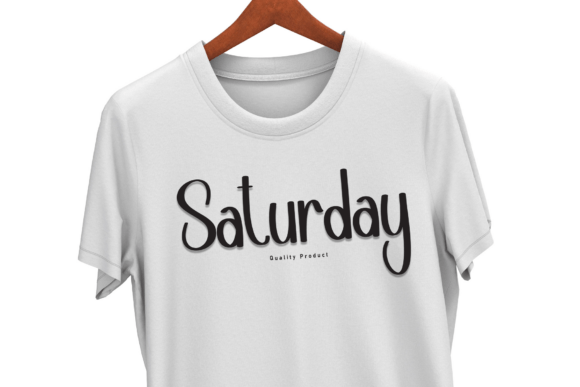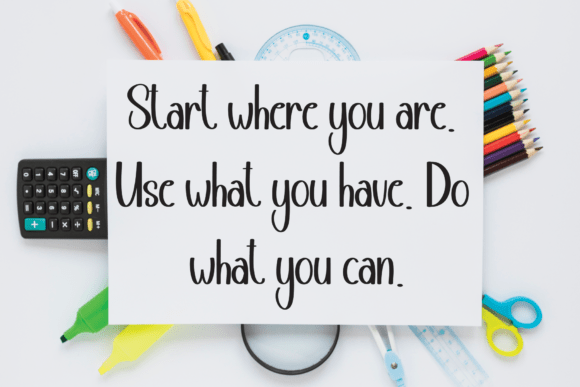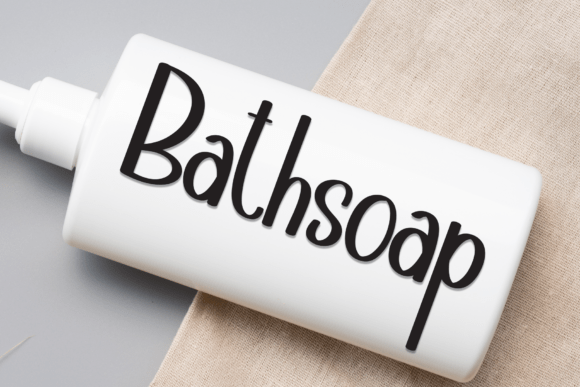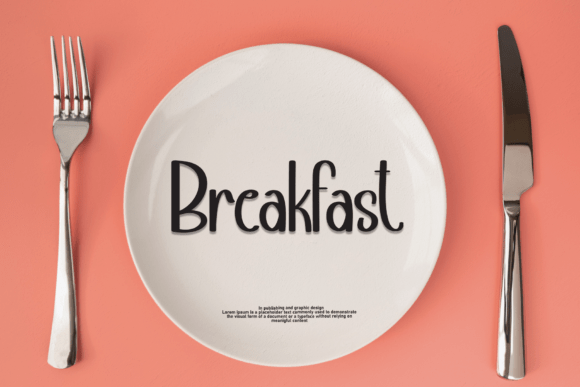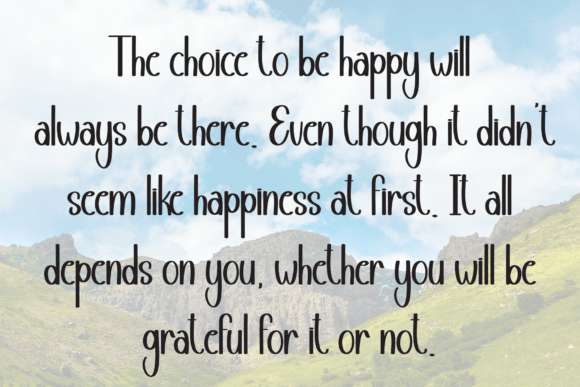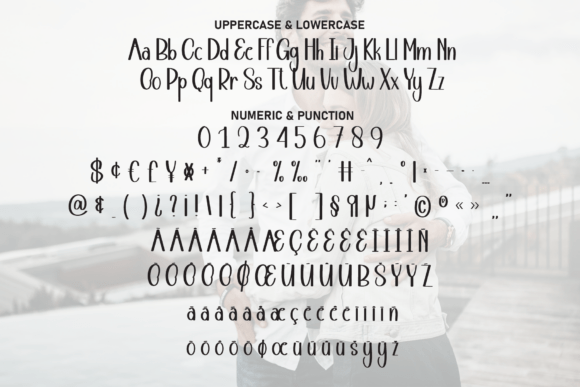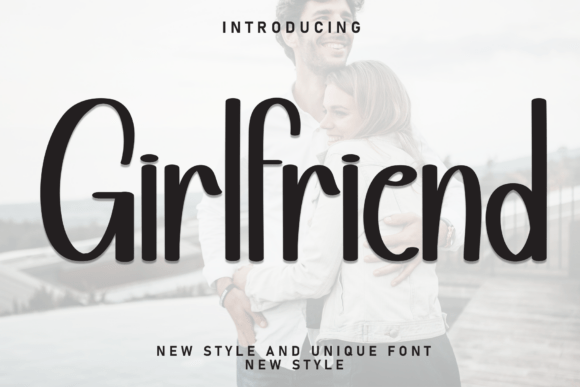
Girlfriend Font: The Ultimate Display Font for Your Creative Projects
Are you tired of using the same old fonts for your creative projects? Look no further! Introducing the Girlfriend Font, a delightfully charming and warmly approachable handwritten display font that’s sure to take your designs to the next level. With its refreshing fusion of cuteness and fun, this font is perfect for adding a playful touch to your artistic ventures.
What Makes Girlfriend Font So Special?
The Girlfriend Font boasts a unique and captivating style that’s sure to illuminate your designs. Its handwritten approach gives it a warm and friendly feel, making it perfect for a variety of creative projects. Whether you’re designing wedding invitations, greeting cards, or social media graphics, this font is sure to infuse joy and personality into your work.
Perfect for Wedding Invitations and Card Designs
One of the standout features of the Girlfriend Font is its suitability for wedding invitations and card designs. Its elegant yet playful style makes it perfect for couples looking to add a personal touch to their special day. Additionally, the font’s versatility ensures it can be used for a wide range of card designs, from birthdays and anniversaries to get-well cards and holiday greetings.
Step Up Your Design Game with Girlfriend Font
With the Girlfriend Font, you can add a playful touch to your designs and take them to new heights. Its unique style and charming personality make it the perfect choice for designers and crafters looking to create eye-catching and engaging work. Whether you’re a seasoned pro or just starting out, this font is sure to inspire your creativity and help you produce stunning results.
Key Features of Girlfriend Font
- Handwritten display font: Giving your designs a warm and friendly feel
- Refreshing fusion of cuteness and fun: Adding a playful touch to your work
- Perfect for wedding invitations and card designs: Making it ideal for couples and crafters
- Versatile and easy to use: Suitable for a wide range of creative projects
Tips for Using Girlfriend Font
To get the most out of the Girlfriend Font, here are a few tips to keep in mind:
- Experiment with different sizes and colors: To add visual interest and personality to your designs
- Pair with complementary fonts: To create a unique and eye-catching combination
- Use for headlines and titles: To add a playful touch and draw attention to your content
In conclusion, the Girlfriend Font is a must-have for designers and crafters looking to add a playful touch to their creative projects. With its unique style, charming personality, and versatility, this font is sure to inspire your creativity and help you produce stunning results. So why wait? Download the Girlfriend Font today and take your designs to the next level!